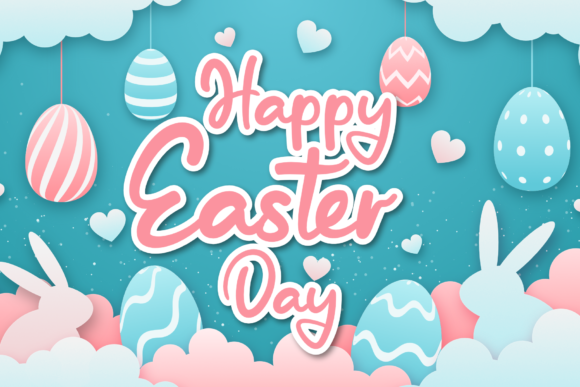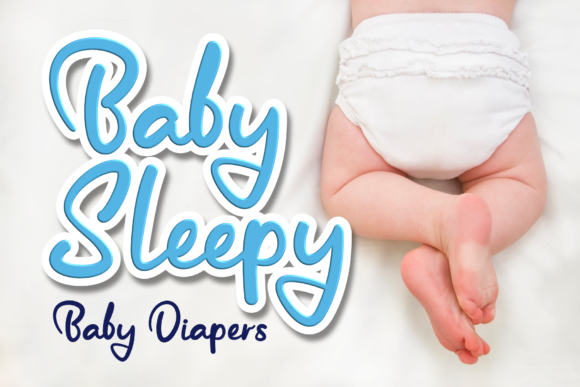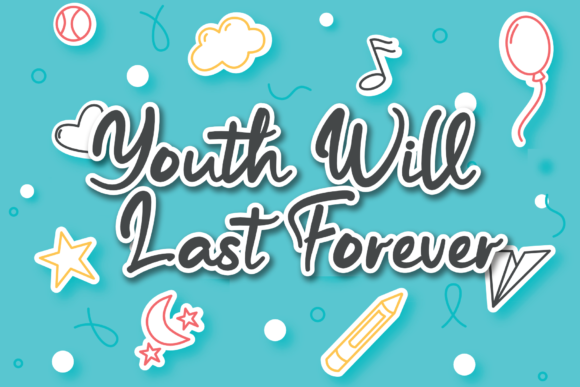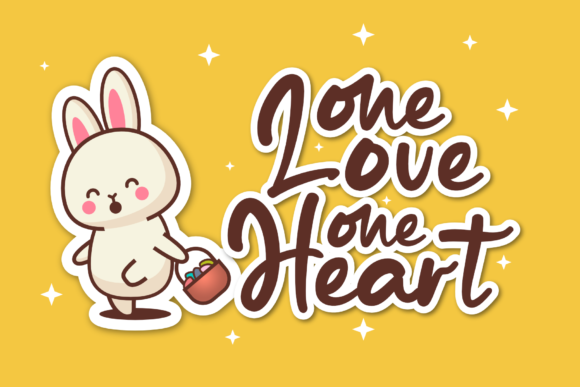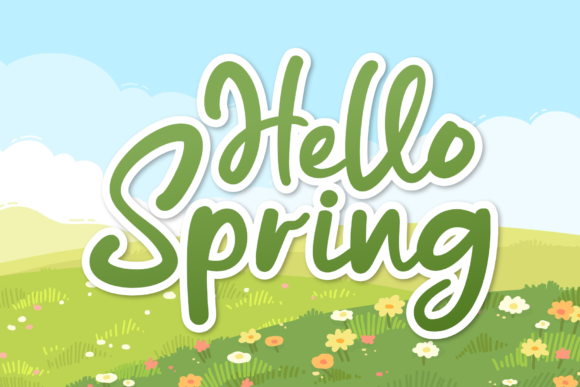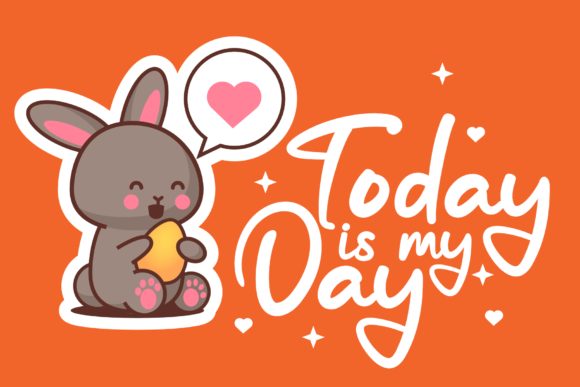
Introduction to Friendly Rabbit Font
Have you ever been working on a creative project, and you just can’t seem to find the right design resource to bring it to life? Perhaps you’re creating a cartoon, designing a children’s game, or just need a lovely touch to make your project stand out. I know the feeling, and that’s exactly why I’m excited to share with you the Friendly Rabbit Font.
This high-quality, free download font is a game-changer for designers like us who need a unique and playful touch for our projects. With its stylish and brushed handwritten style, the Friendly Rabbit Font is perfect for adding a personal and whimsical feel to your design. Whether you’re working on a creative project or just need a design resource with a transparent background, this font is sure to be a valuable addition to your toolkit.
- Unique, hand-drawn style: Friendly Rabbit Font features a distinctive, hand-drawn design that adds a personal touch to any project.
Honest Review: Friendly Rabbit Font
I recently stumbled upon the Friendly Rabbit Font and I must say, it’s a lovely addition to any design project. The font is available for a free download, which is always a bonus in my book.
- High-quality design: The Friendly Rabbit Font is well-designed and looks professional, making it perfect for creative projects.
- Transparency: The font comes with a transparent background, giving you more flexibility when designing.
- Cuteness factor: Let’s face it, rabbits are cute, and this font does a great job of capturing that charm.
While I appreciate the Friendly Rabbit Font, there are a few limitations I’d like to mention:
- Basic character set: The font only includes a limited set of characters, which might make it less versatile than some other fonts.
Overall, I think the Friendly Rabbit Font is a great design resource for personal projects or non-commercial use. While it has some limitations, its high quality and cute design make it a great addition to any creative project.
Getting the Most Out of the Friendly Rabbit Font
To get the most out of the Friendly Rabbit Font, use it in combination with a transparent background to create a seamless and professional design. Experiment with different font sizes and styles to add visual interest to your project.
The Friendly Rabbit Font is perfect for use in children’s book illustrations, greeting cards, and other creative projects that require a playful and whimsical touch. Its high quality design and transparent background make it a valuable design resource for any project.